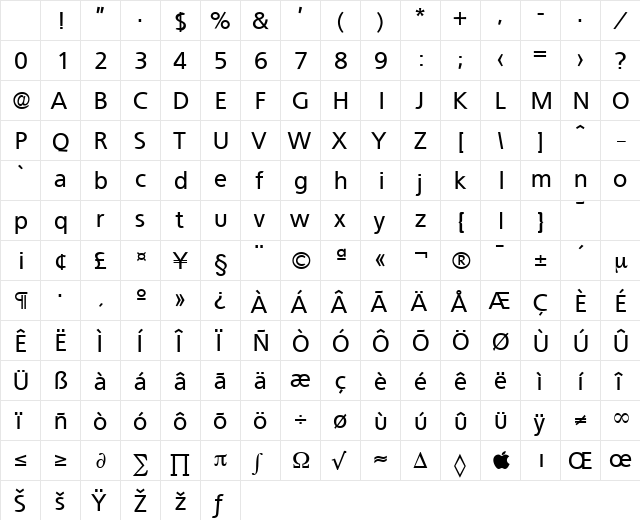
Quebec-Serial-Medium Regular
Quebec-Serial-Medium Family
Complete Quebec-Serial-Medium Regular glyph index. Displaying only characters natively supported by Quebec-Serial-Medium Regular font.
Design Context for Quebec-Serial-Medium
Quebec-Serial-Medium is a composed and adaptable typeface that performs quietly and consistently across a wide range of design contexts.